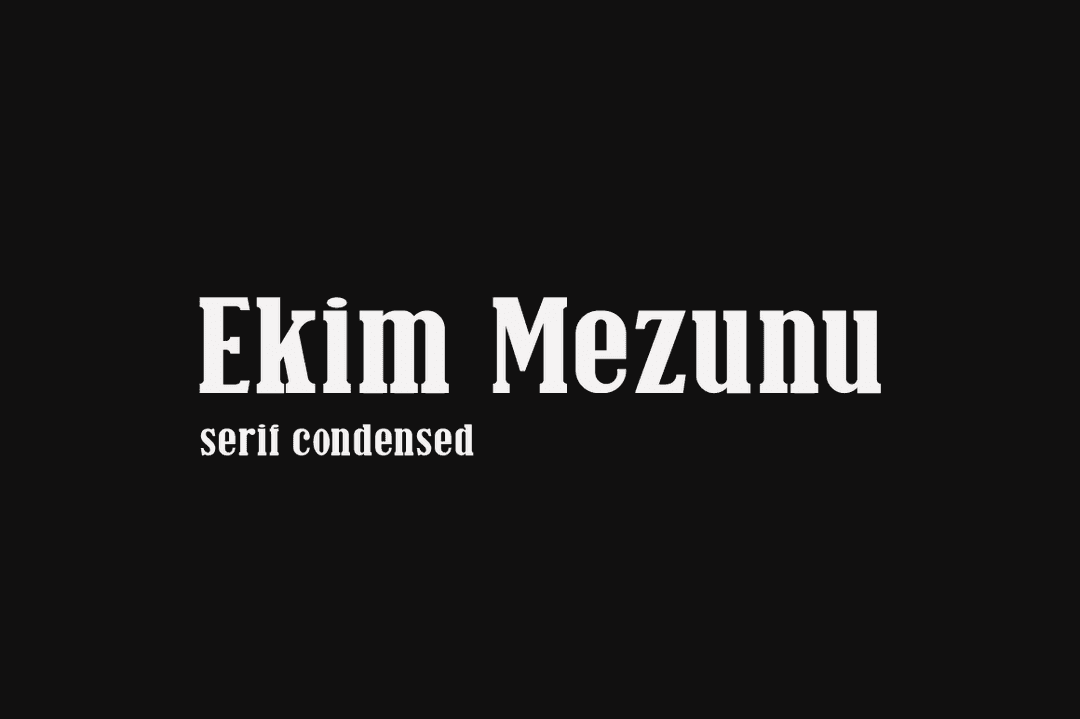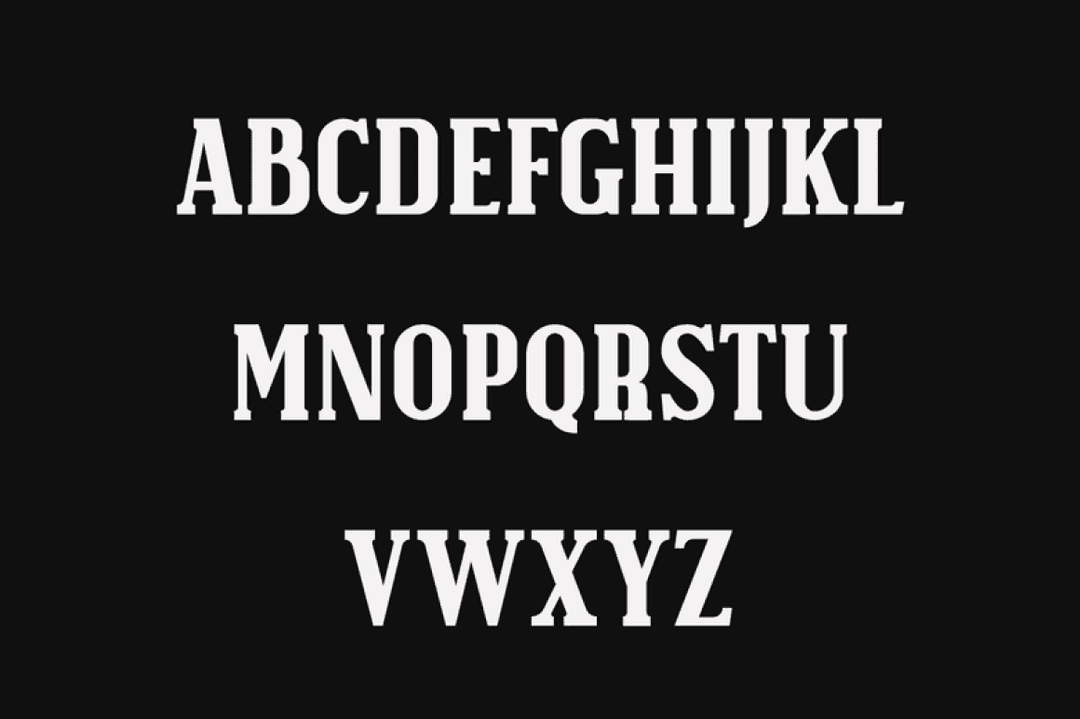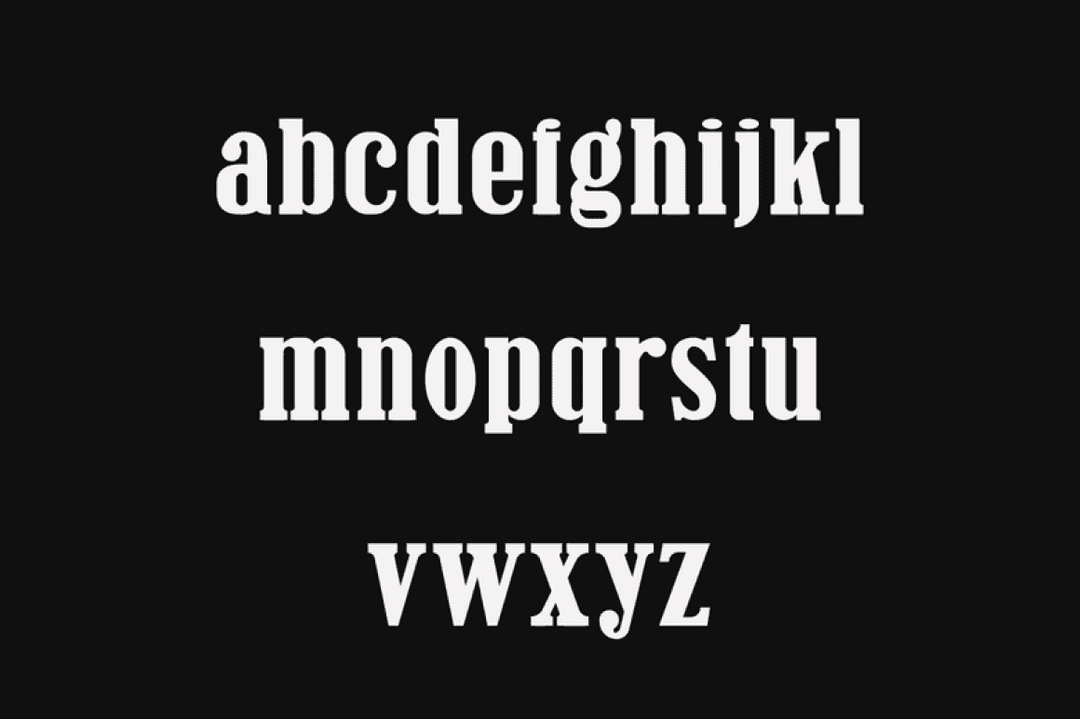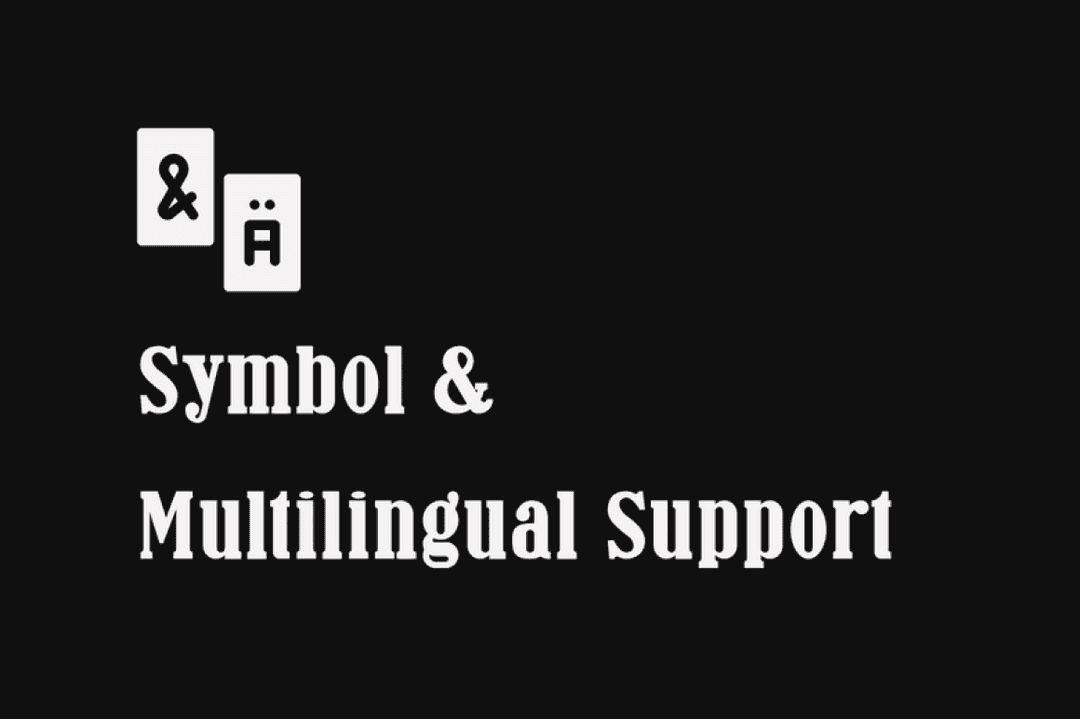
Ekim Mezunu is an elegant Serif typeface which can provide both an enjoyable reading experience and striking headlines or subtext applications with more weights. Perfect for posters, logos covers, packaging, t-shirts, wedding cards, business cards or similar applications – Ekim Mezunu makes text enjoyable as well as creating eye-catching headlines or subtext applications using more weights.